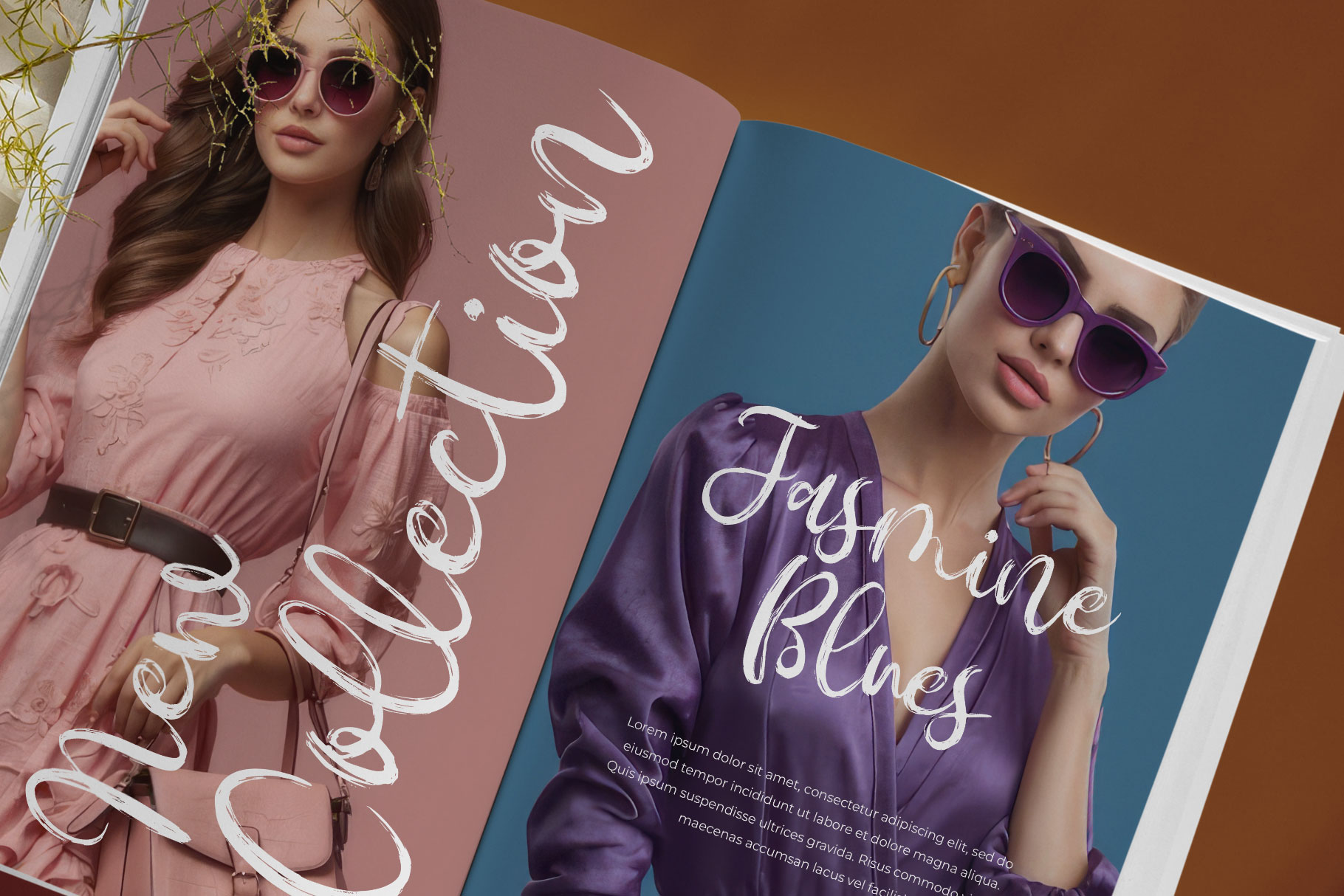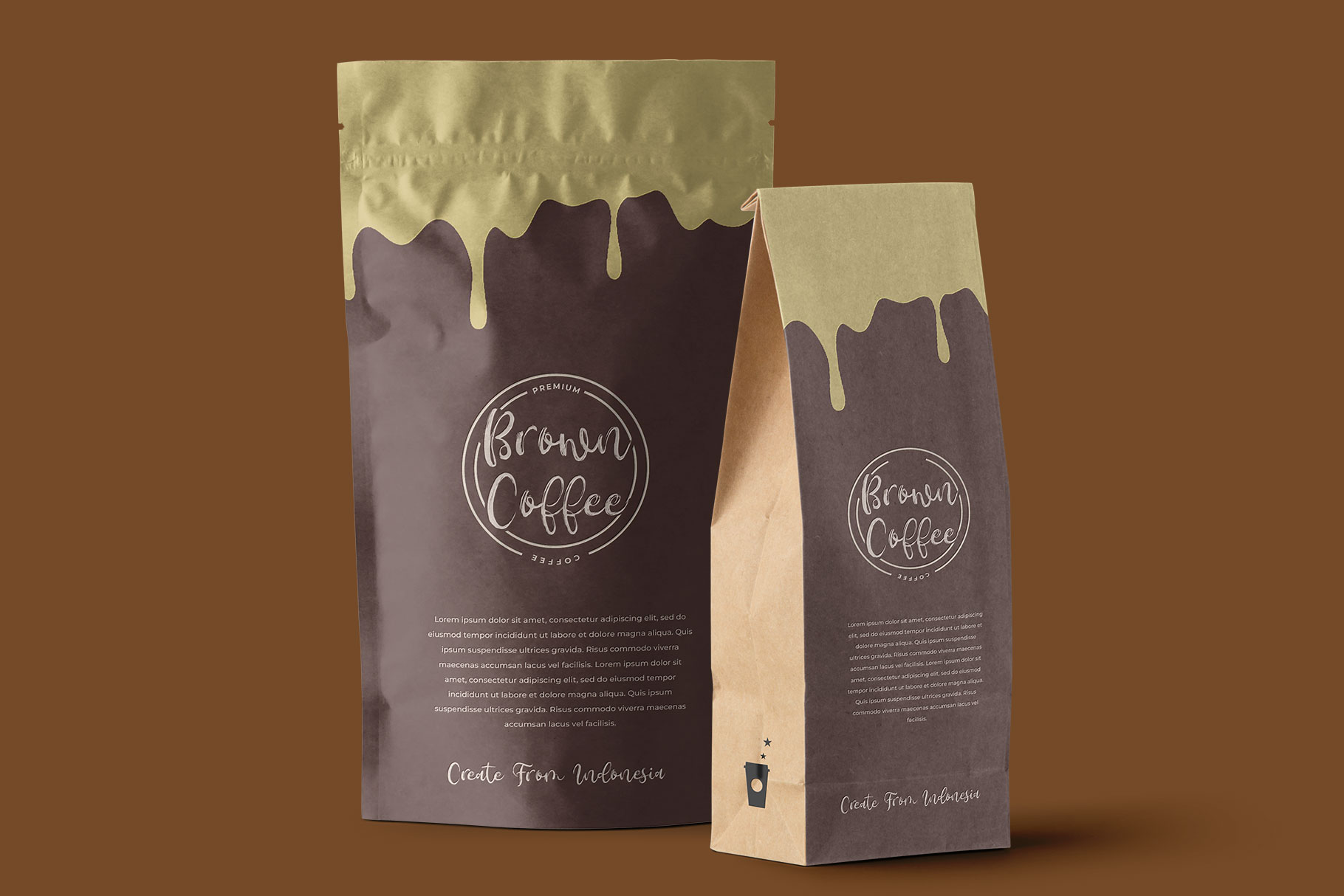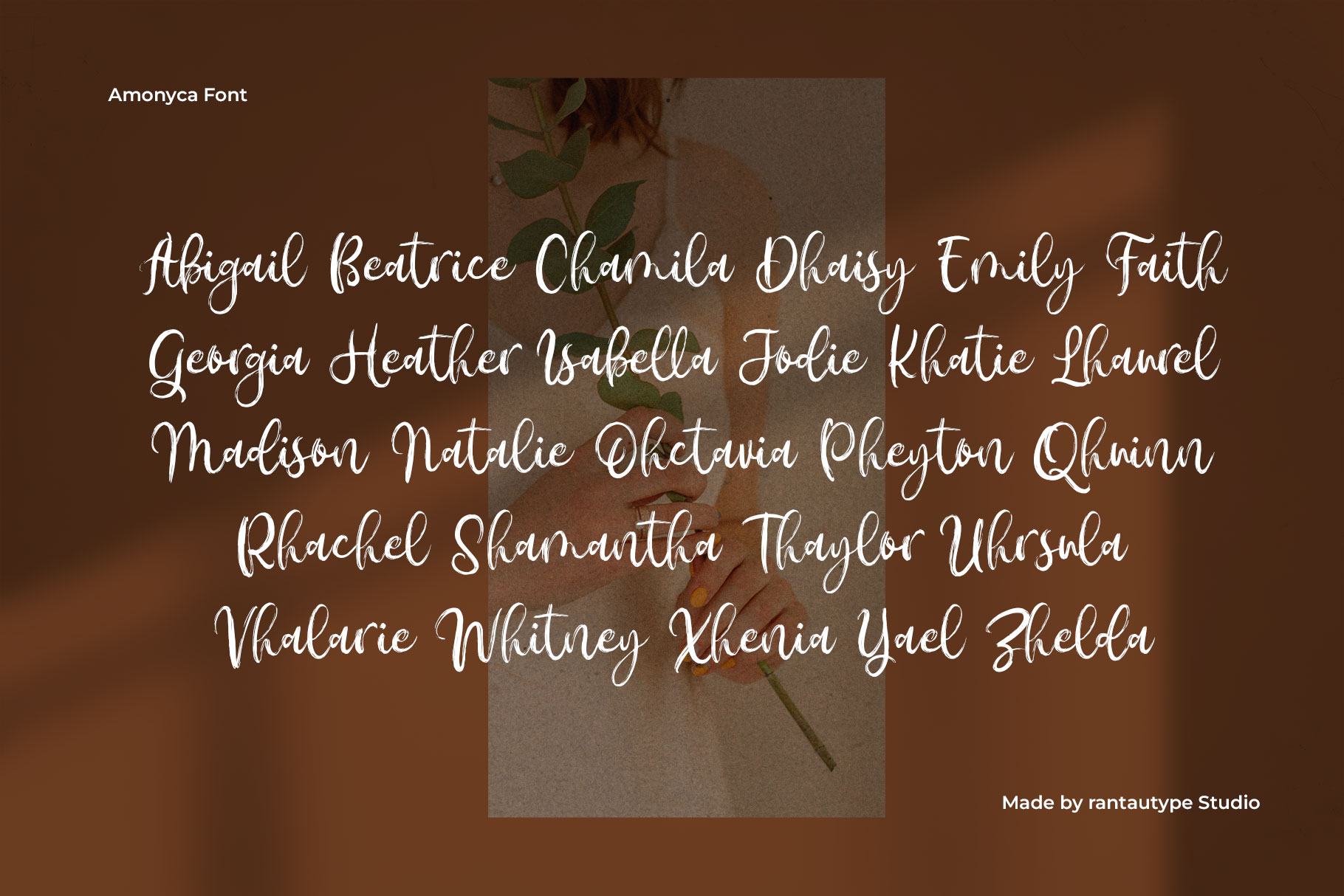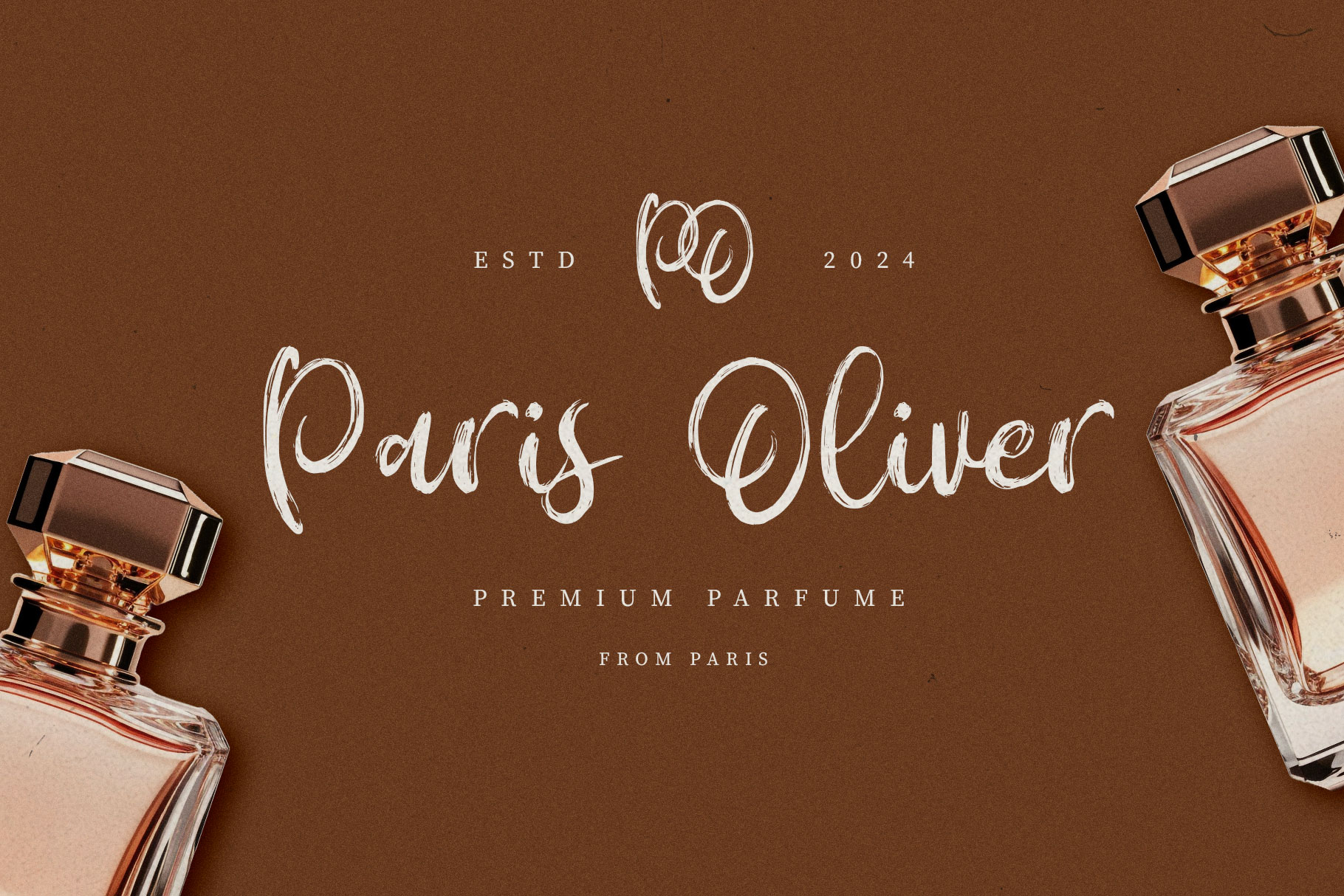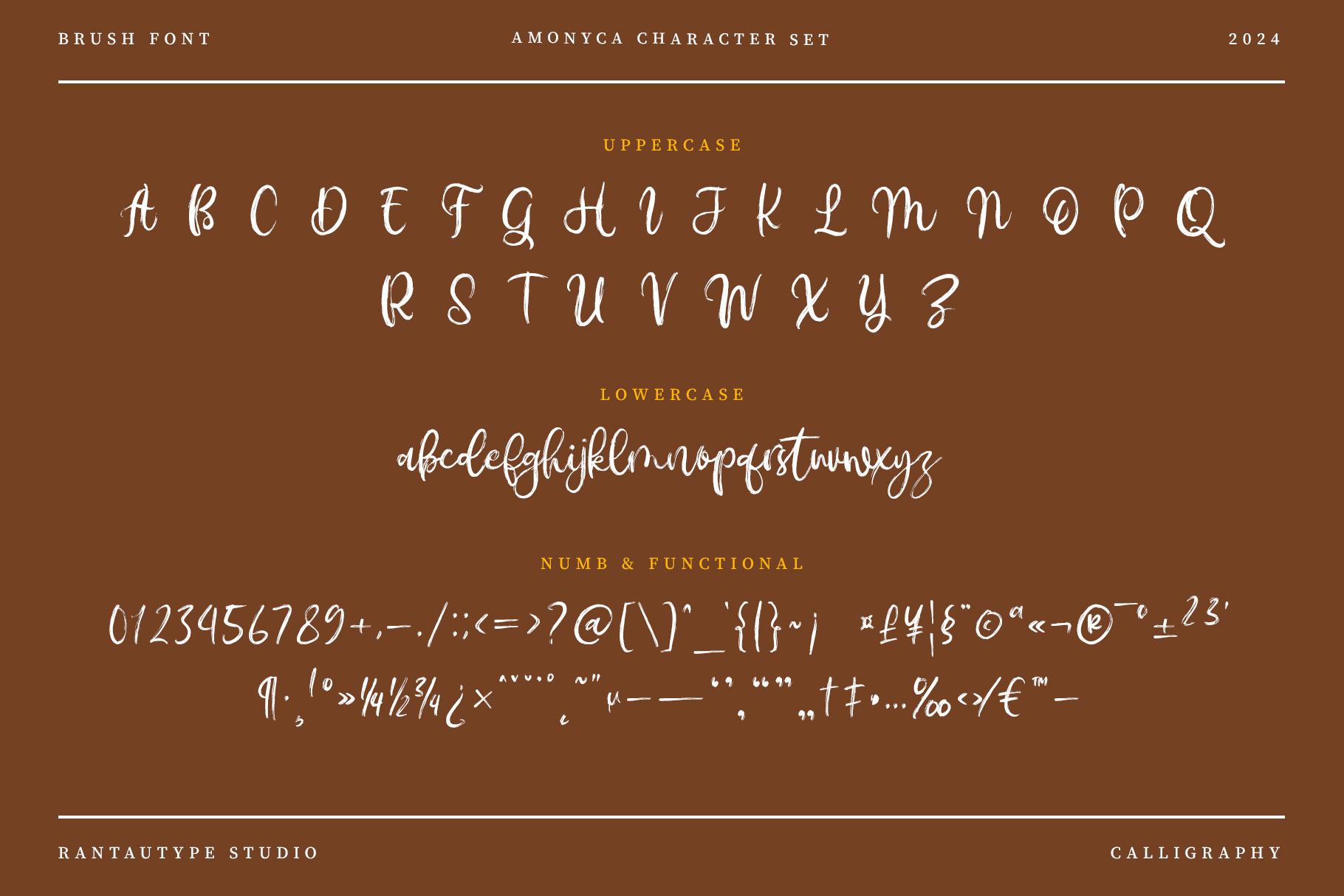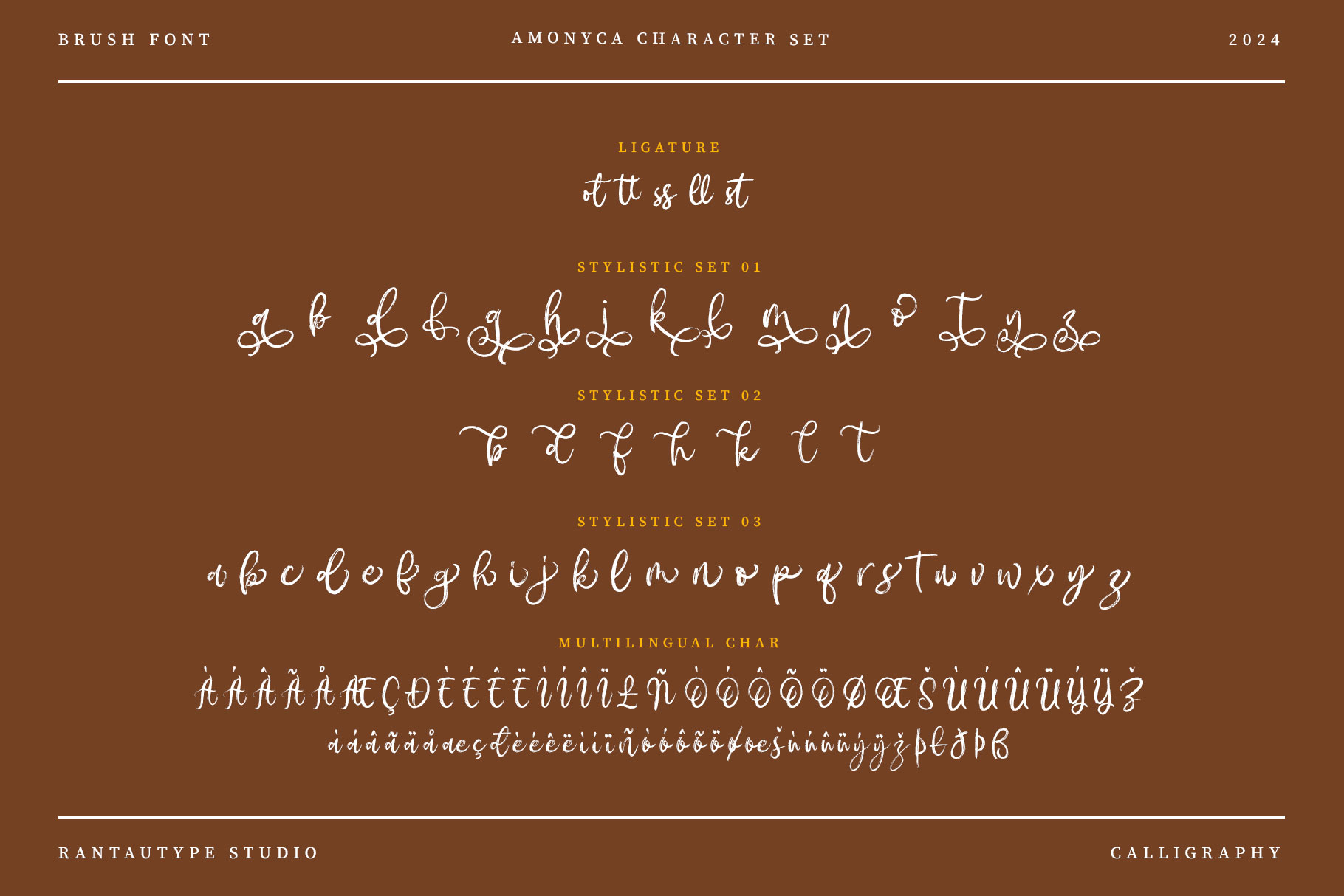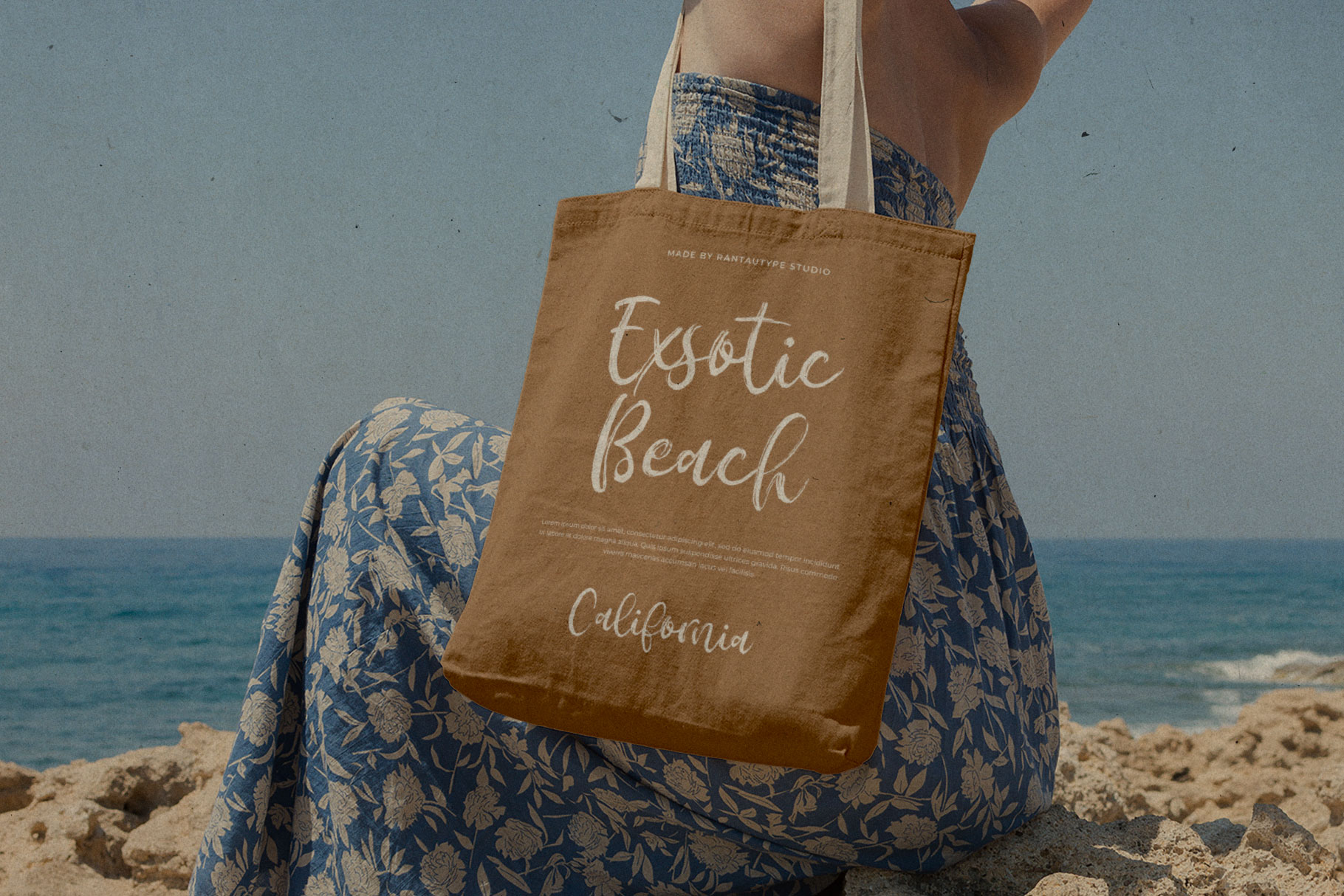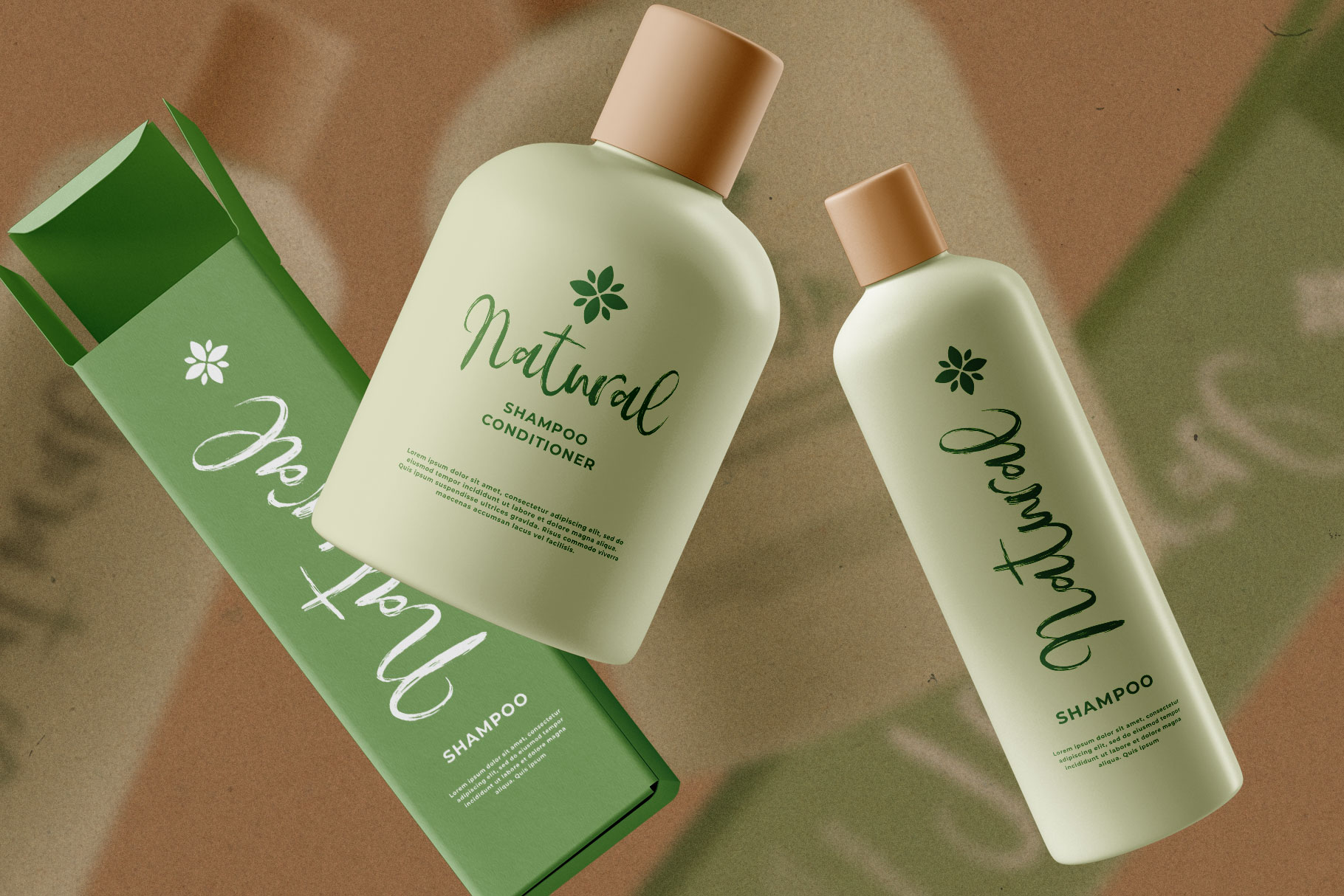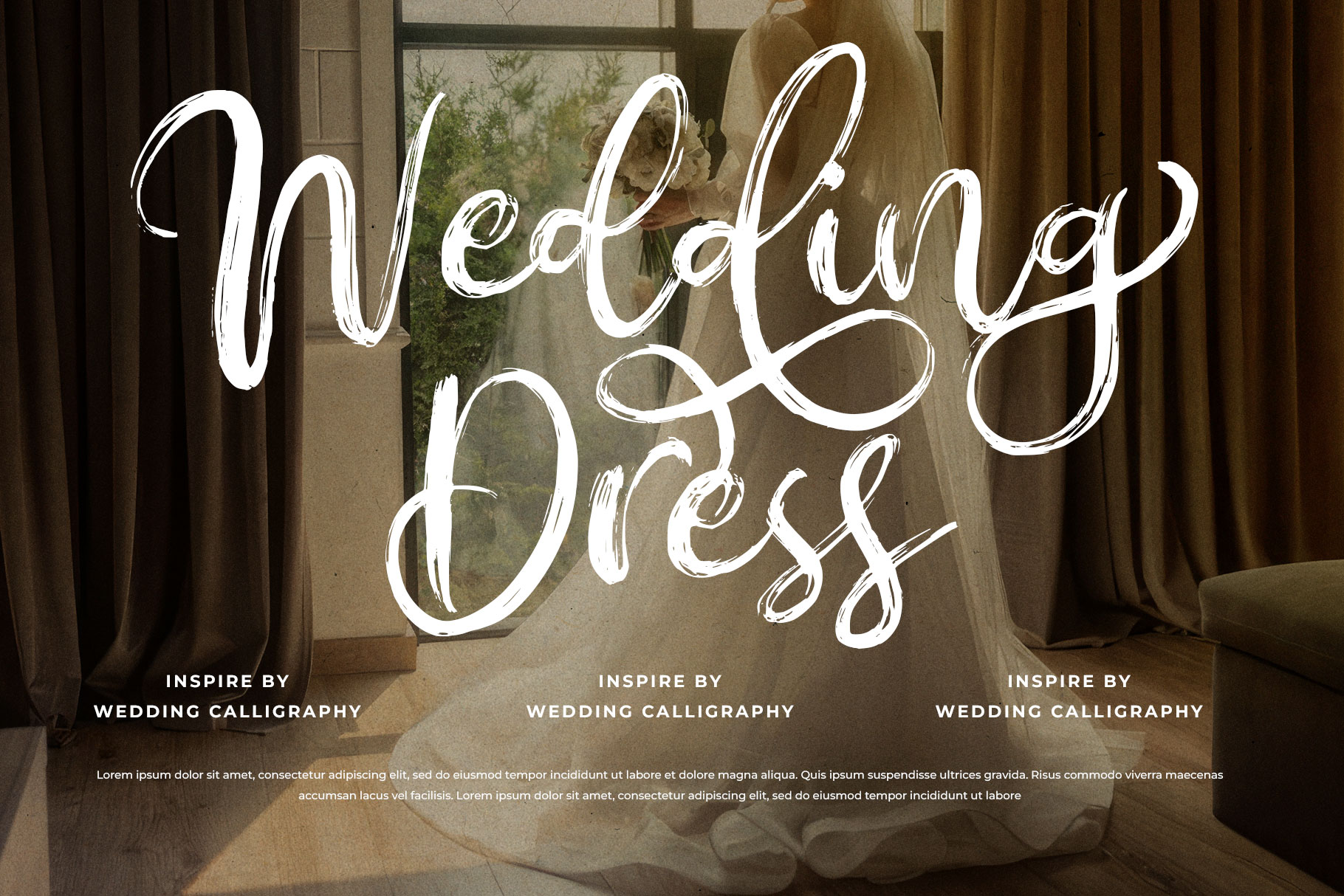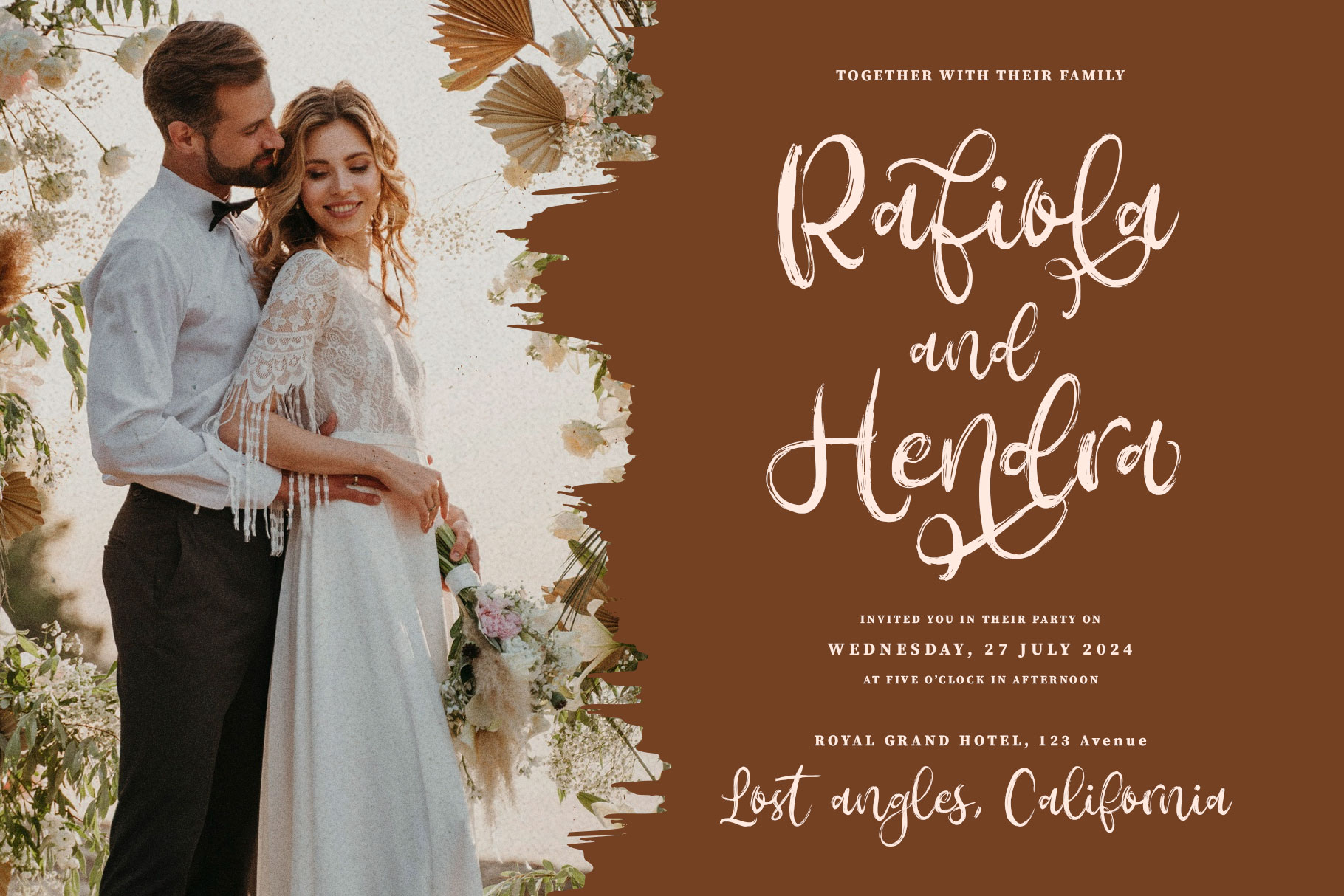
Amonyca Calligraphy Brush Font
Amonyca is chic brush script font inspire by romantic wedding calligraphy. Amonyca bring thick flourishing lines with natural brush, it can make you visual design fresh and stand out. Amonyca come with alternate and ligature, so that you can mix and match to suit your creativity.
Amonyca is a perfectly choice for any creative endeavor, chic, lifestyle design such as logos, advertisements, watermark on photography, stationery, branding project, display and magazine, invitation, corporate brand, product design, label, business project and other project with handwritten taste.